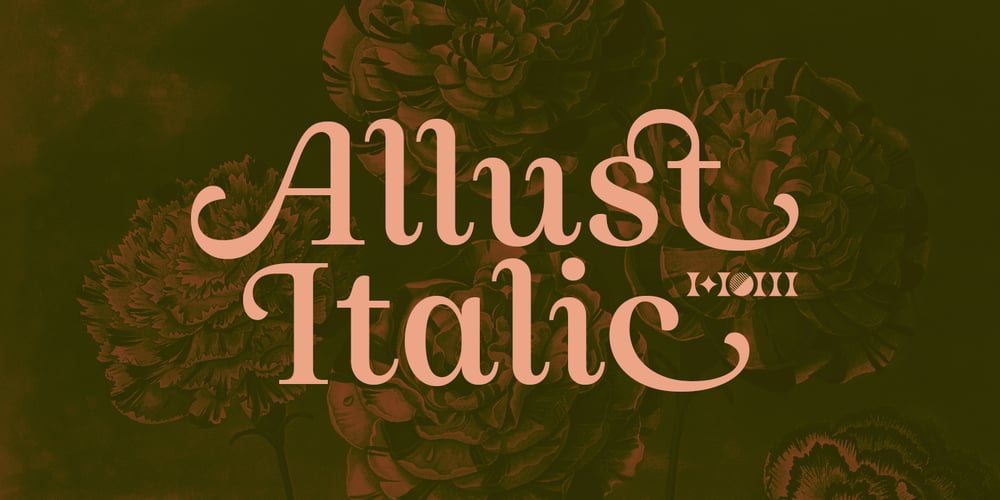
Allust Italic Font Family was designed by Yusril Muhtadi and published by Halfmoon Type. Allust Italic contains 2 styles and family package options. Allust Italic is an Upright italic font that is inspired by italic version some old-style serif typefaces specimen and an from my own flawed italic letterforms back in 2016. Download the cheat sheet for Allust Italic Ornament here:https://www.dropbox.com/s/yz1rvdopxm6mwva/Allust%20Italic%20Ornament%20Cheat%20Sheet.pdf?dl=0